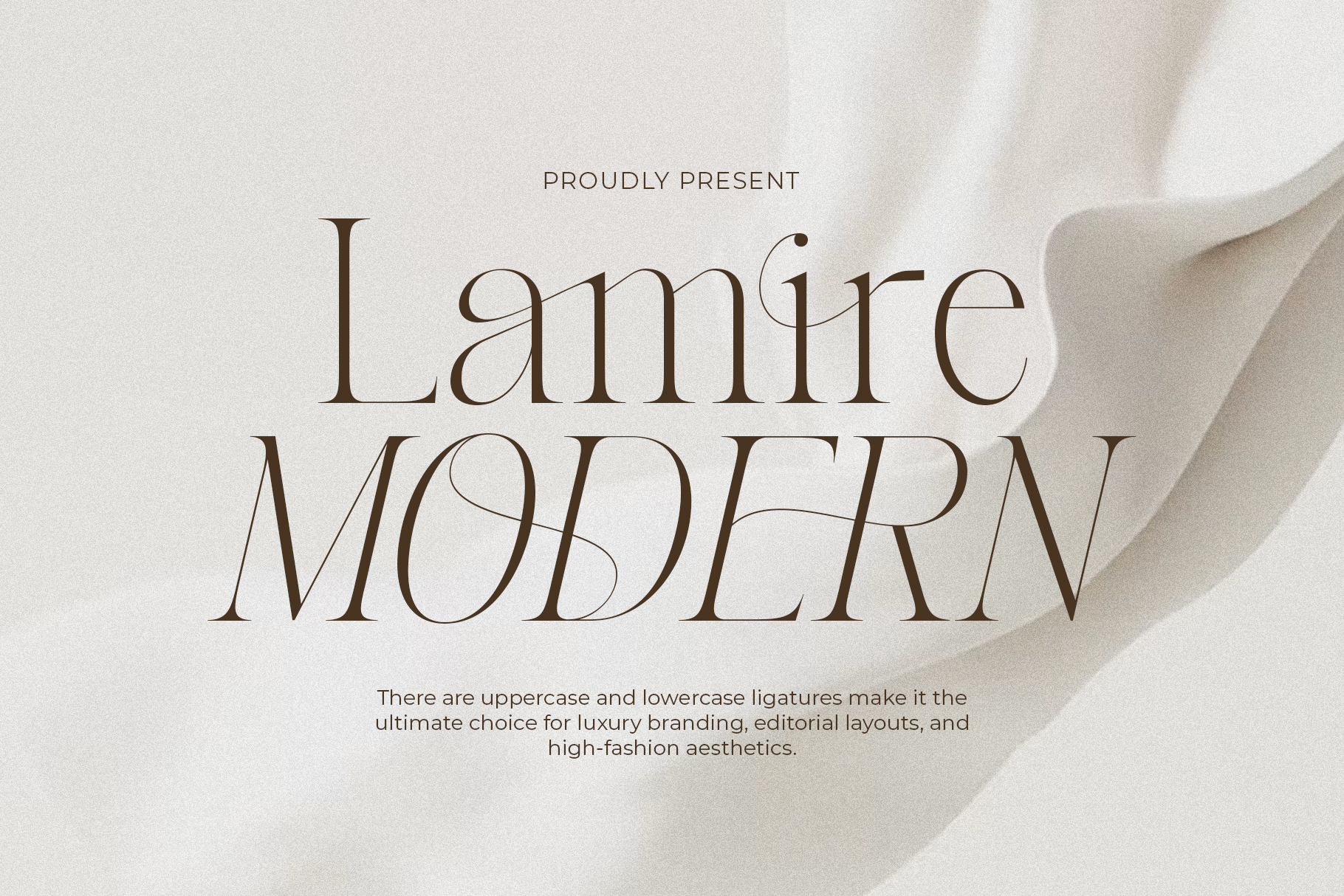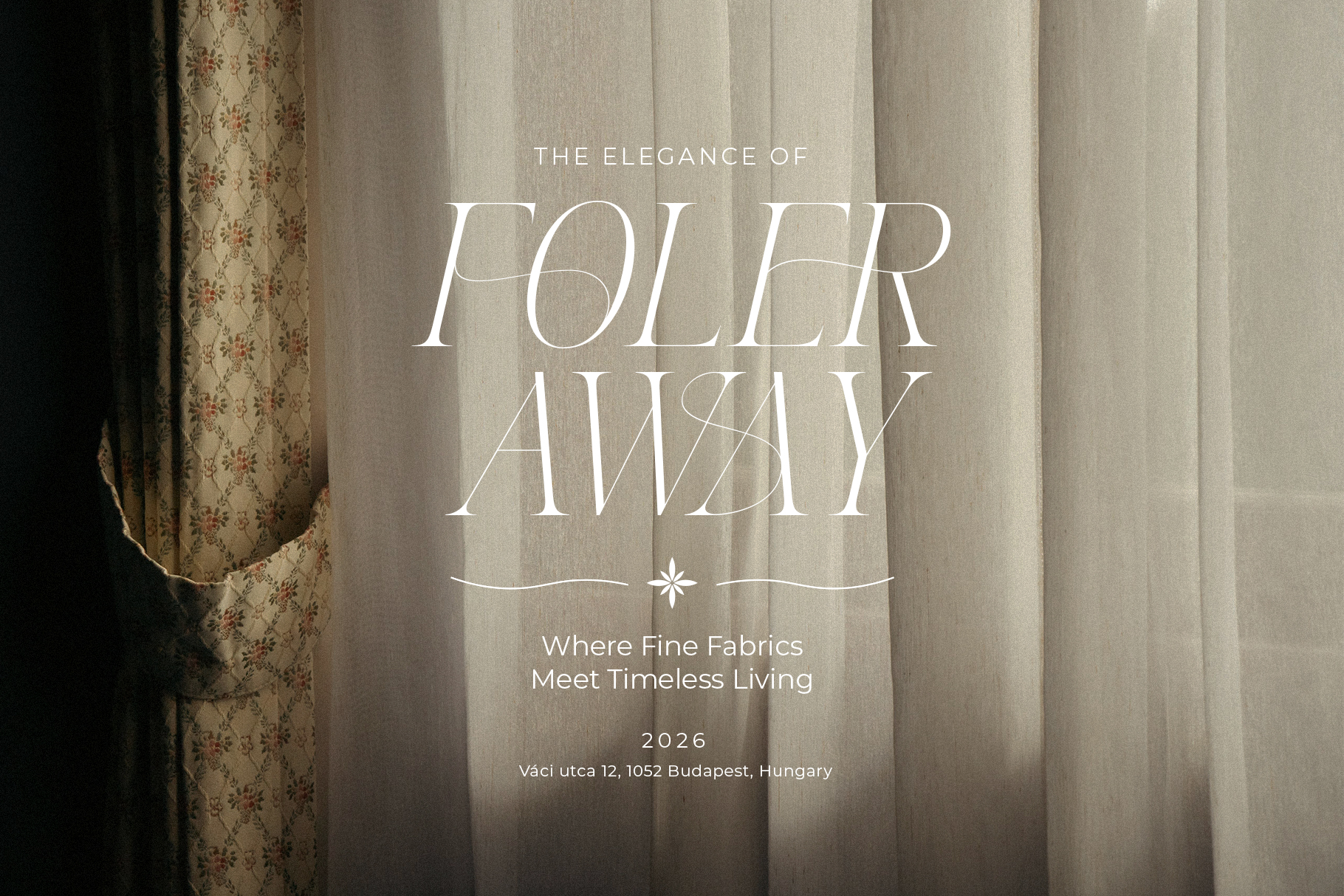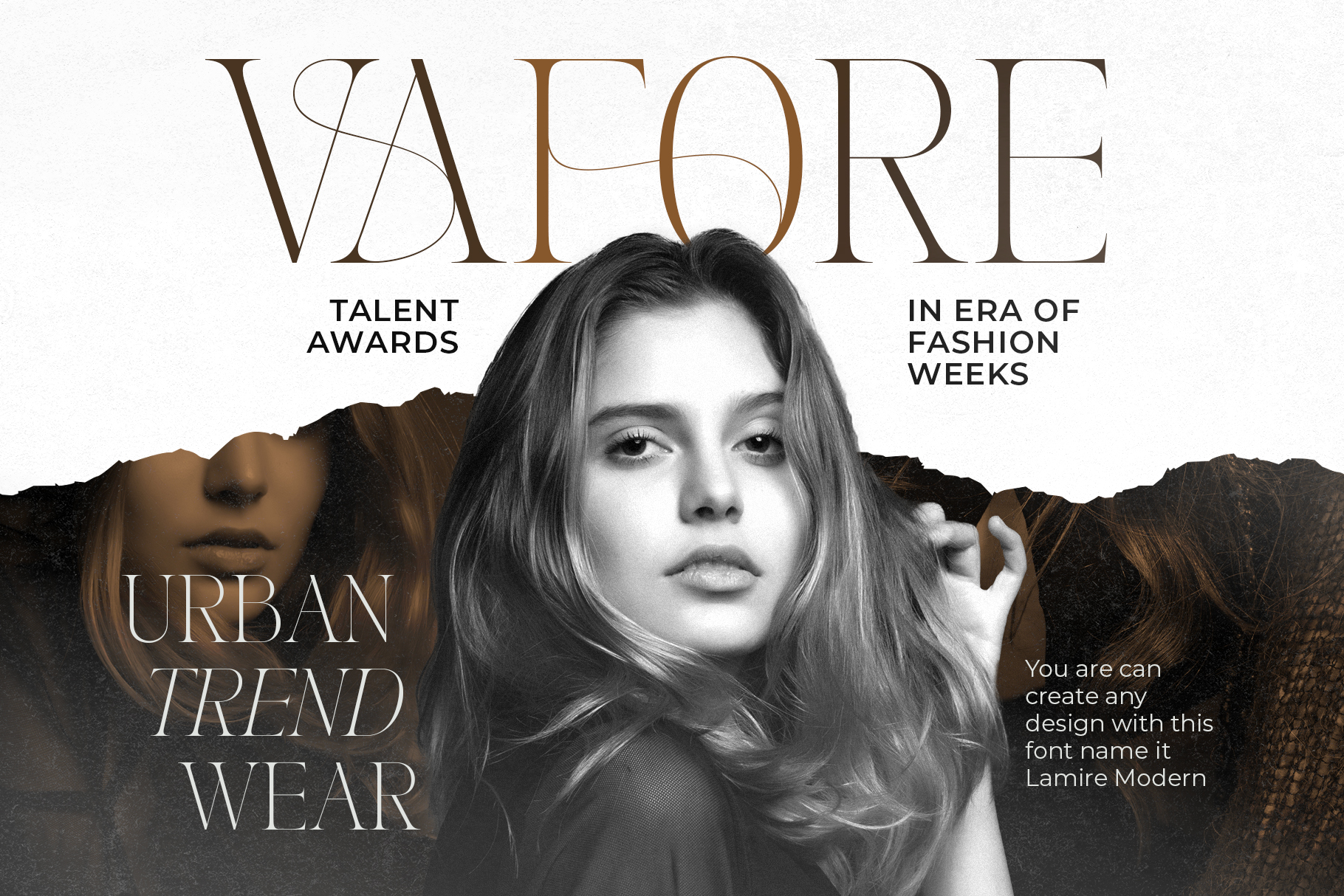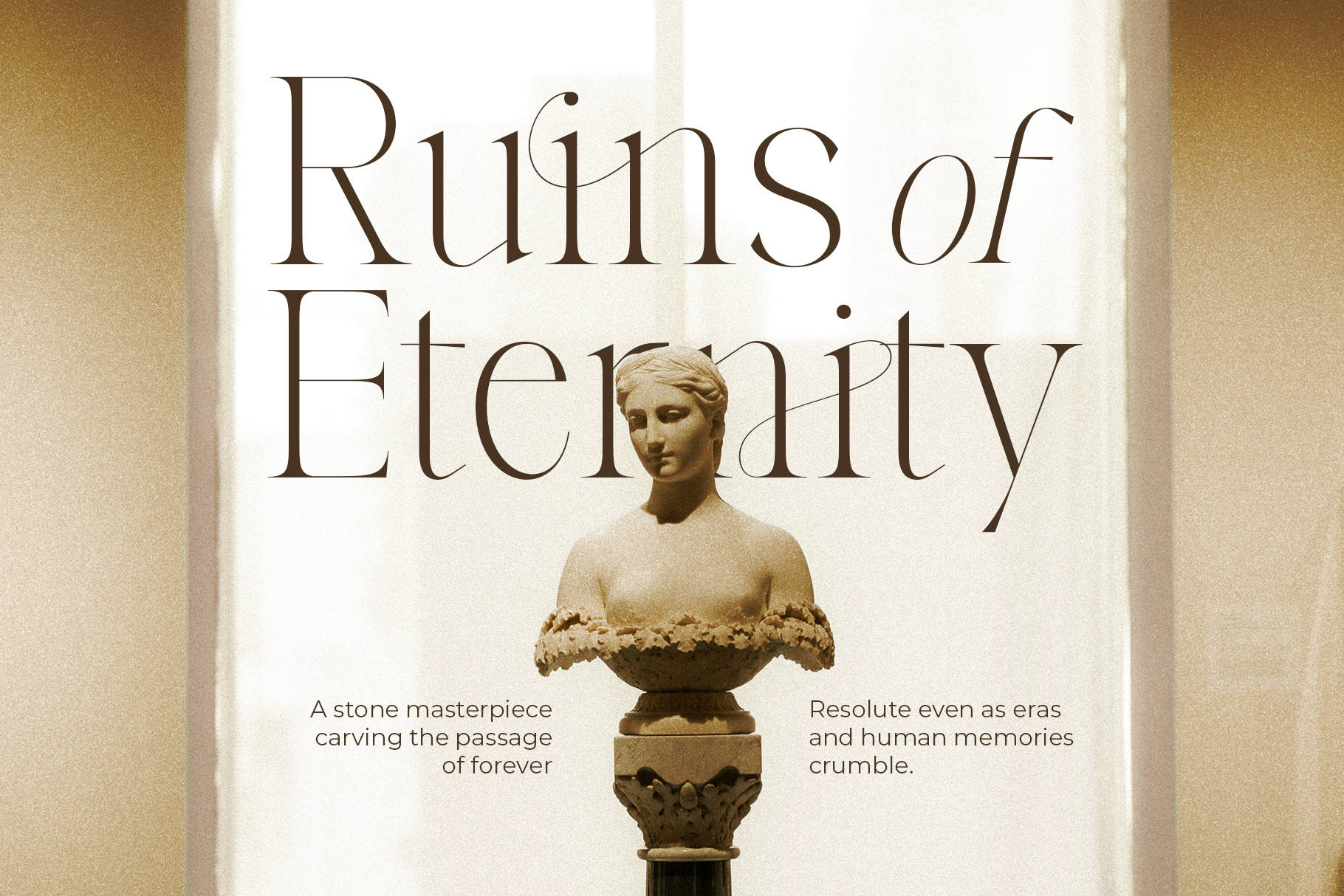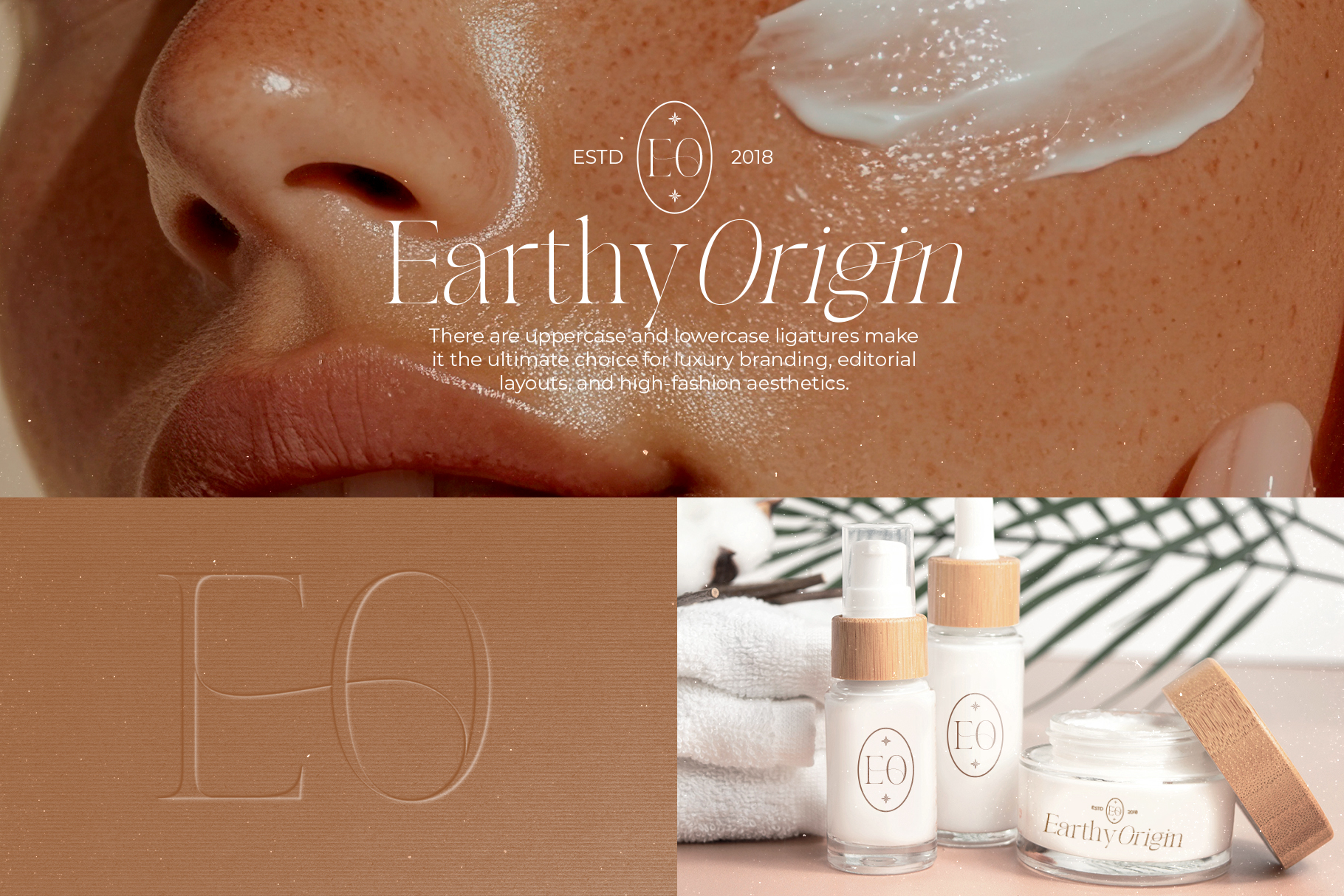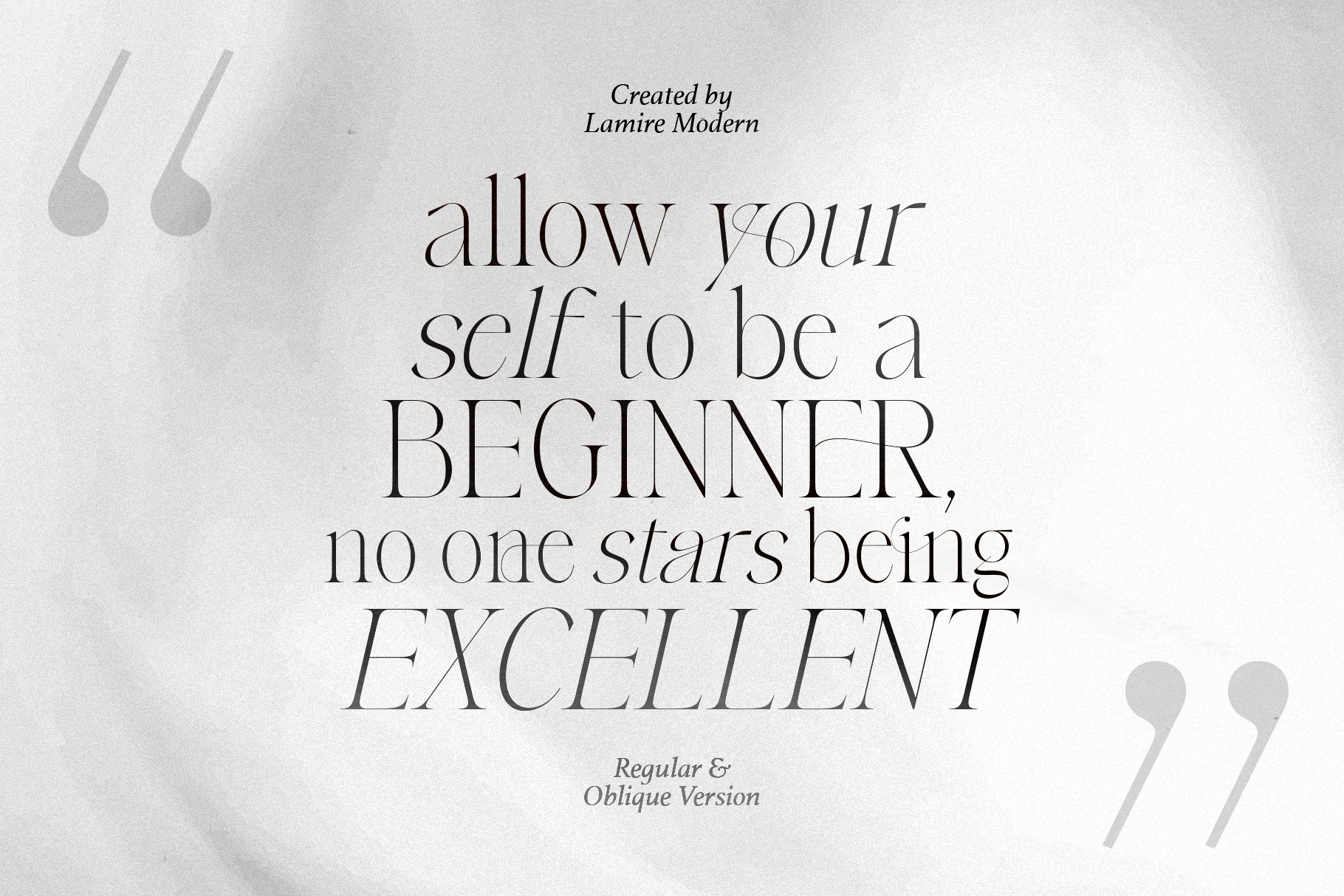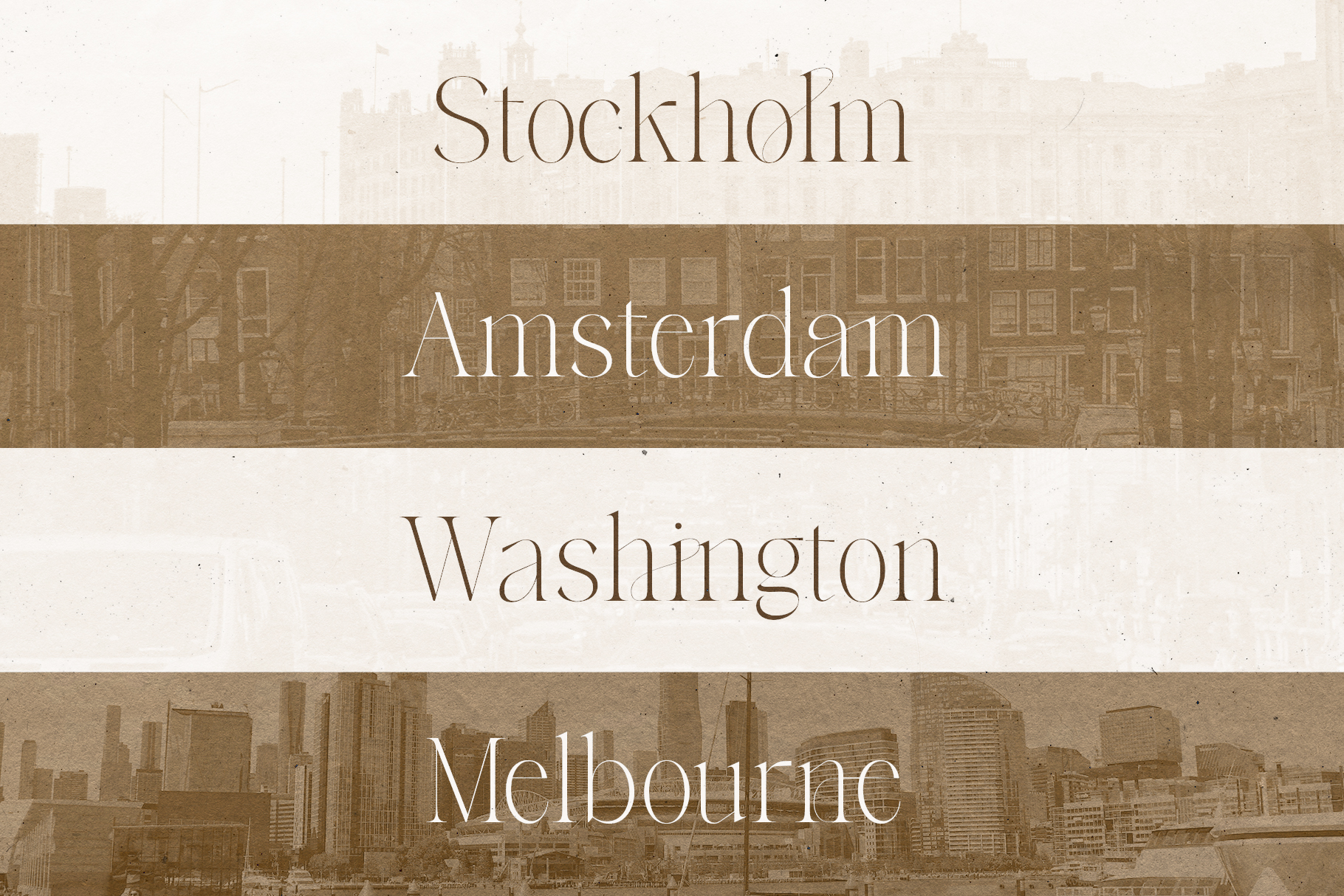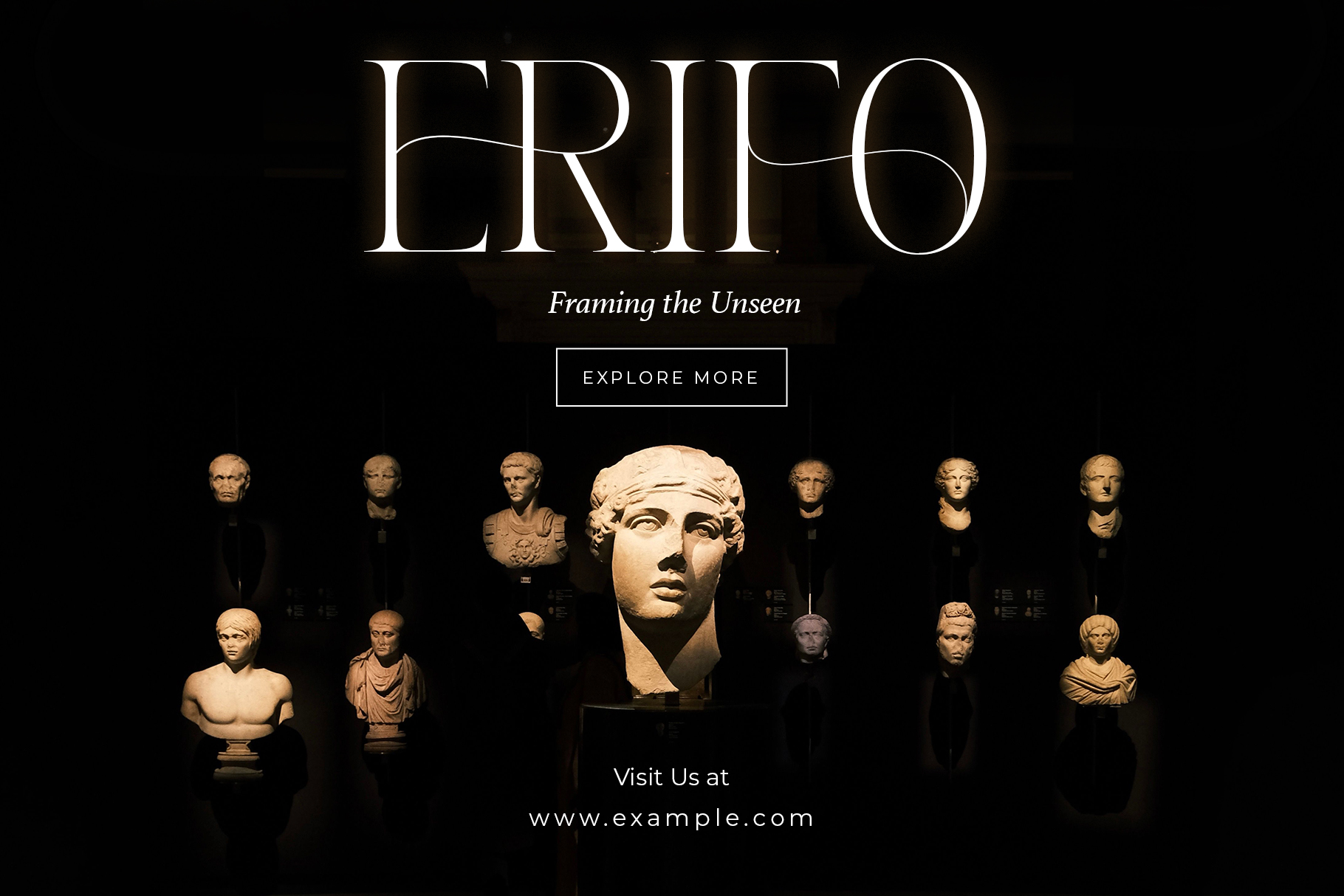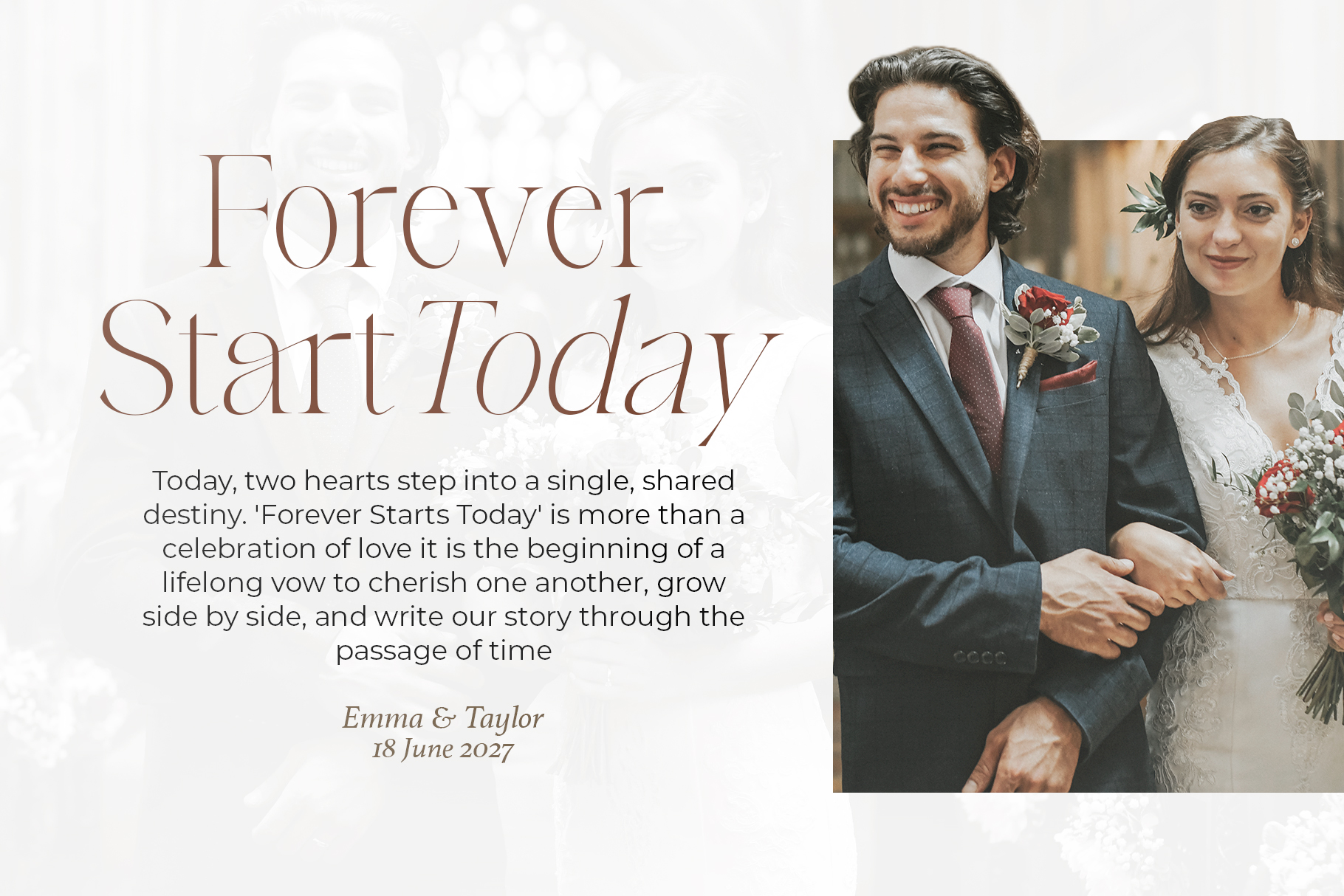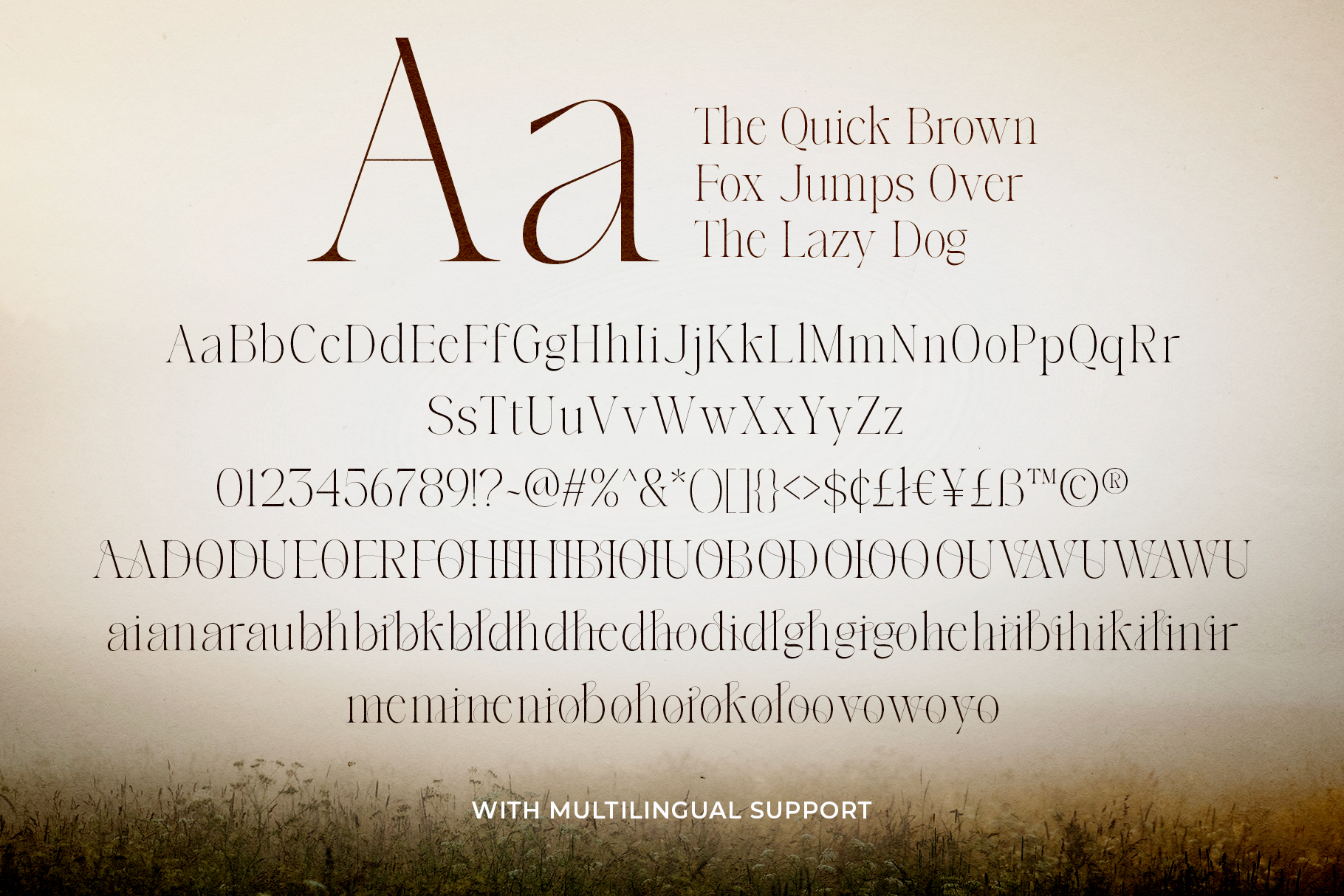
Lamire Modern is a light elegant serif with bunch of ligatures. You can use this font for any purposes such as branding, logotype, quote, or any project that need to look clean and luxury. With modern and stylish ligatures, this font can make your designs look stunning and stand out. This font also support multi language.
Lamire Modern – Light Ligature Serif
Lamire Modern is a light elegant serif with bunch of ligatures.